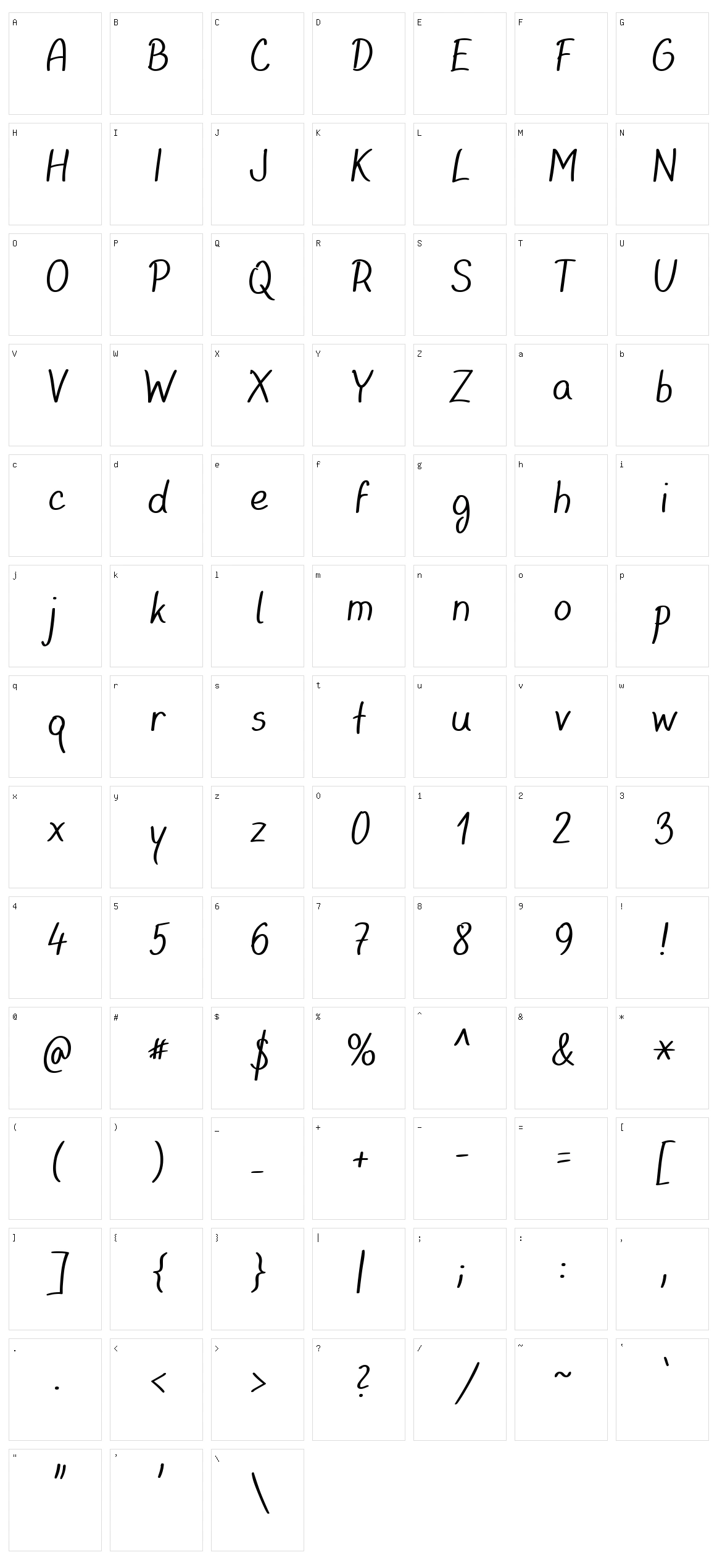
Quality of Life
font by Vít Èondák
History
0.26 2015-02-12
* all margins +20
* modified margins: i
* modified kerning: V+ T+
* tweaked: C
+ AaIiOoUuGgKk+caron Gg+acute SsTt+comma
0.25 2015-02-03
* 2356789 @% {} MST Hbar Ttbar
* fixed many positions of diacritic marks
+ Oodotaccent
0.24 2015-01-29
* ;]^~| JS bdfhjkpvw mu section paragraph thorn
* fixed acutes' positions
0.23 2015-01-27
* O ií... _@ oslash cent yen (C)
* dieresis breve macron
0.22 2015-01-20
* FJKLMUY ginqstu thorn Llslash
0.21 2015-01-19
* ,.#()\ 34678 DEFHMNVX dmn
0.20 2015-01-08
* ,.:"!? 0129 ABDGIMOW acejlortuz lslash
* kerning: V+ k ïk
0.19 2015-01-07
* warped all letters
* L b f r t y
0.18 2014-12-02
* minor tweaks: BCDFGLMOPTVWX []
+ Aadot Ooogonek Eecedilla Aringacute
0.17 2014-11-30
* BG ù <>
0.15 2014-11-17
* b d g u y z section B P Thorn
* 0123456789
* heigh: ADEFL hkt
+ cent currency yen brokenbar germandbls
+ (C) (R) {} pound
+ commabelow+... caron+... macron+... ring+...
+ kerning: V+ W+ T+
0.14 2014-11-16
+ acute+... breve+... circ+...
+ Euro
0.13 2014-11-16
+ basic ASCII set